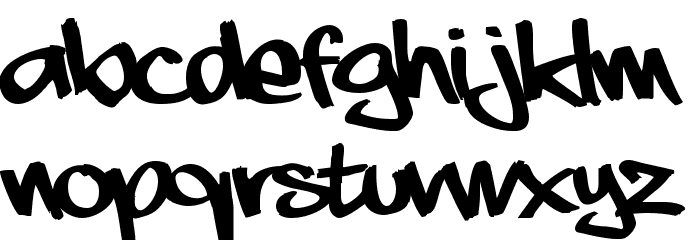
aaaiight! Font
This font exudes a bold and energetic style, characterized by its thick, brush-like strokes that give it a dynamic and expressive appearance. The letters are slightly slanted, adding a sense of movement and fluidity. The uppercase and lowercase letters maintain a consistent style, with rounded edges and a playful, informal vibe. The numbers and special characters follow the same bold and lively design, making them stand out prominently. This font is ideal for projects that require a touch of creativity and personality, such as posters, graffiti art, or branding for youthful and energetic brands.
A bold, brush-style font with dynamic and expressive strokes.
- Proposed Projects: Perfect for posters, graffiti art, branding for youthful brands, and creative projects.